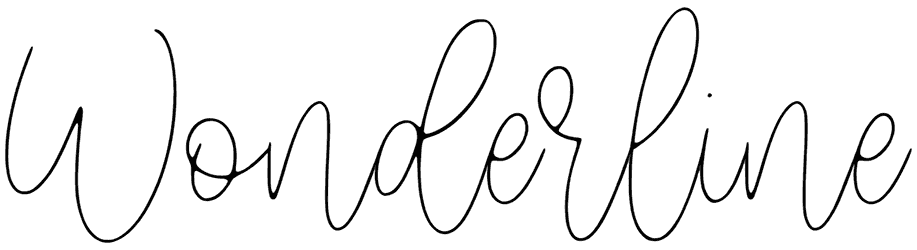
Wonderline Font
Wonderline, a fast handwritten font, is ideal for those who want to inject some naturalism into their digital works. Surprisingly, this font is a little harder to read, but still feels modern is a plus. Use this delicate font in your next commercial, greeting card, or decorative project.